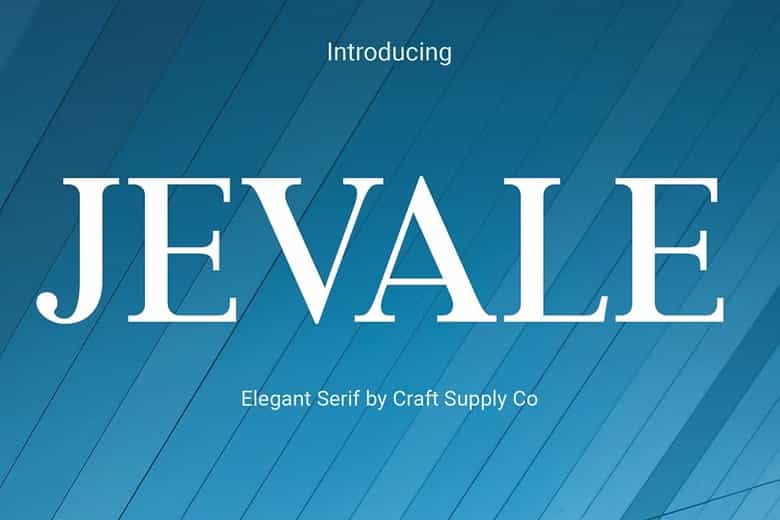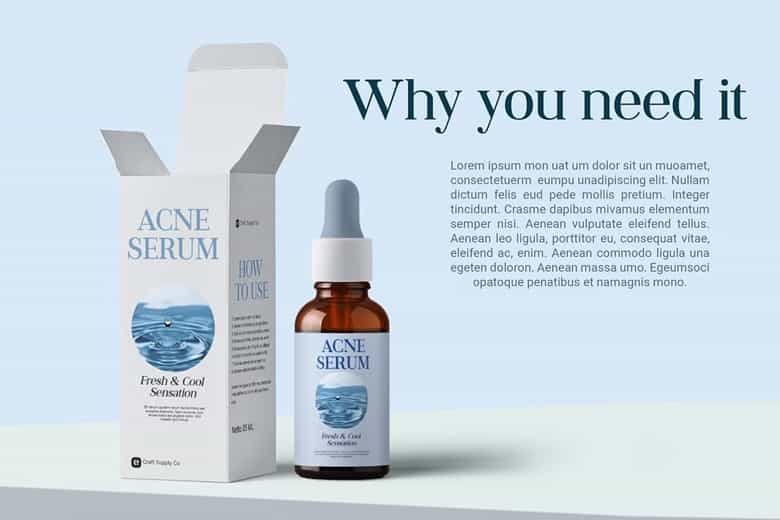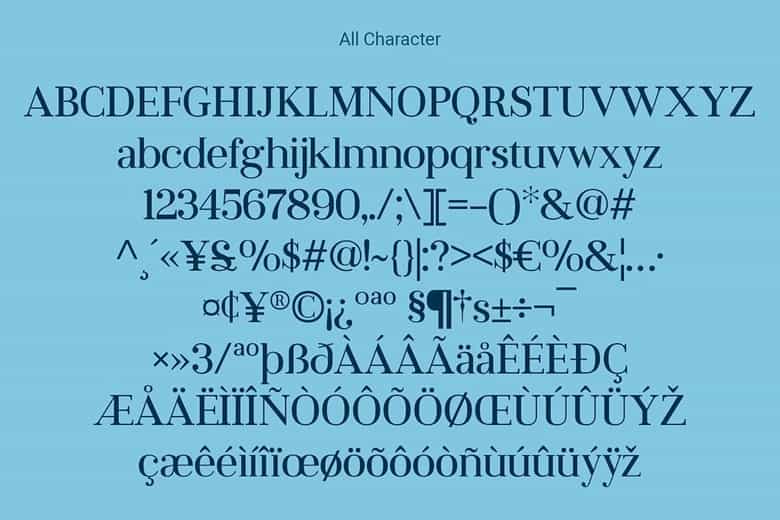
Jevale is a timeless serif font perfect for any use; body text or headline. Due to this, it can easily be incorporated into different design works. Elegance for All Text Applications It can be used in body paragraphs to pass critical information or in titles to capture readers’ attention, and Jevale suits any text situation.